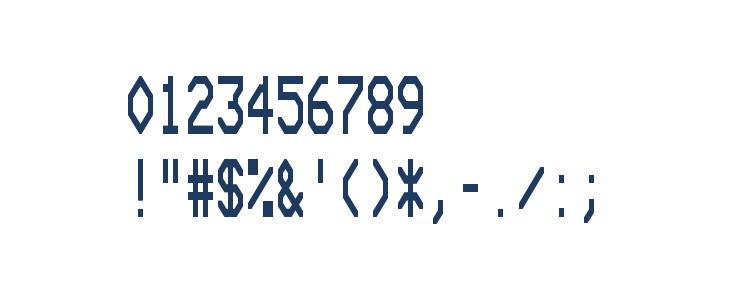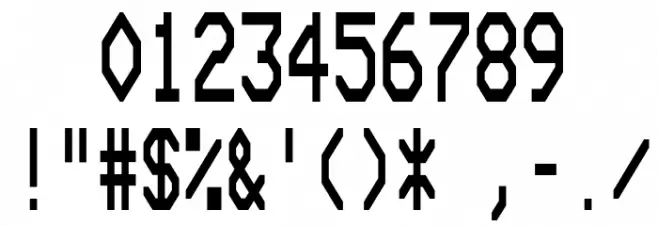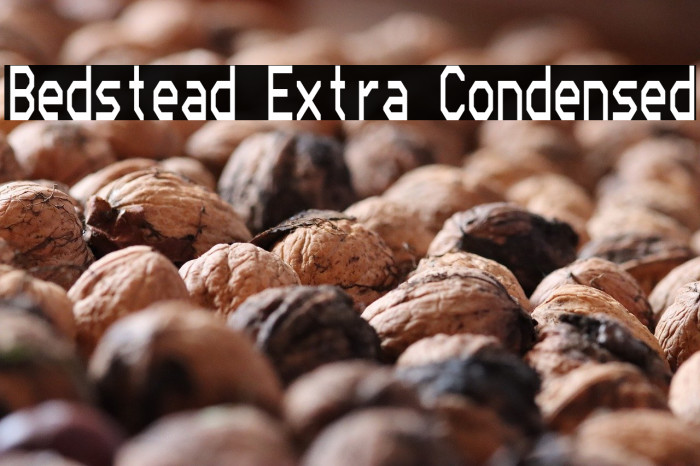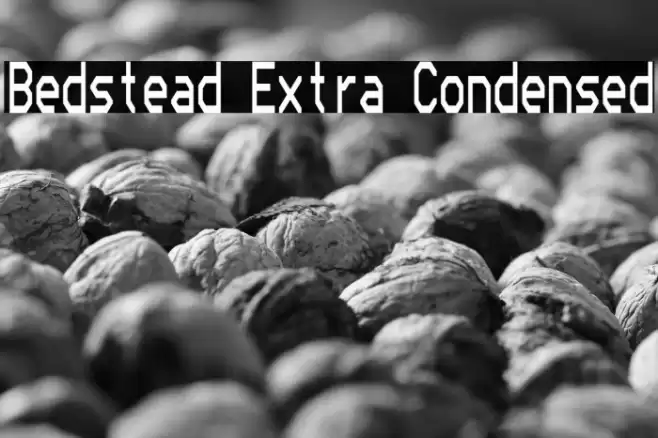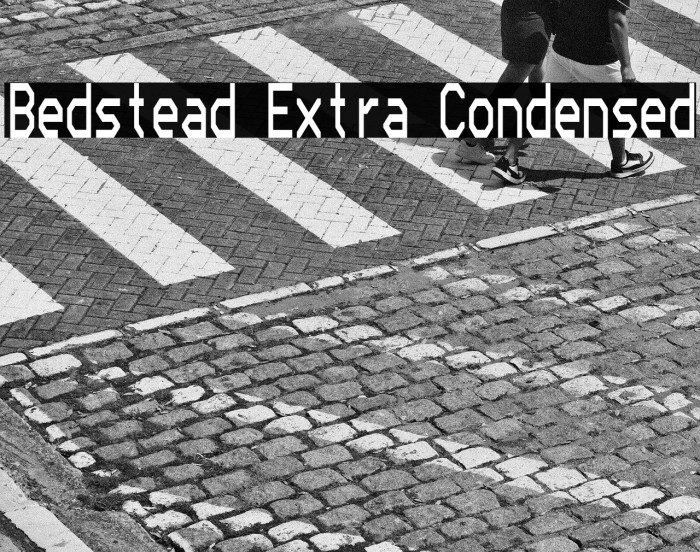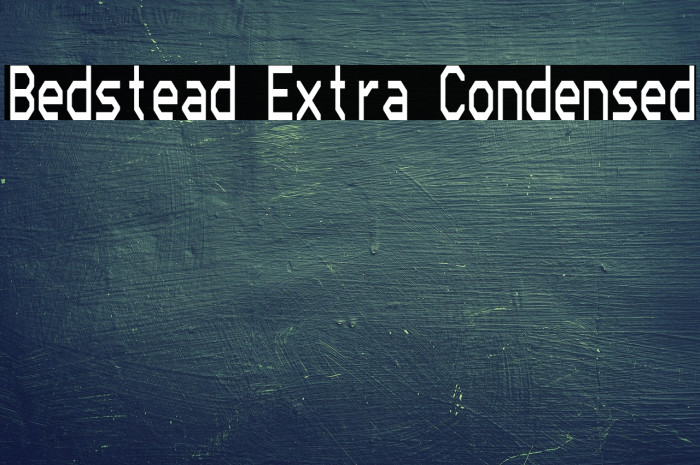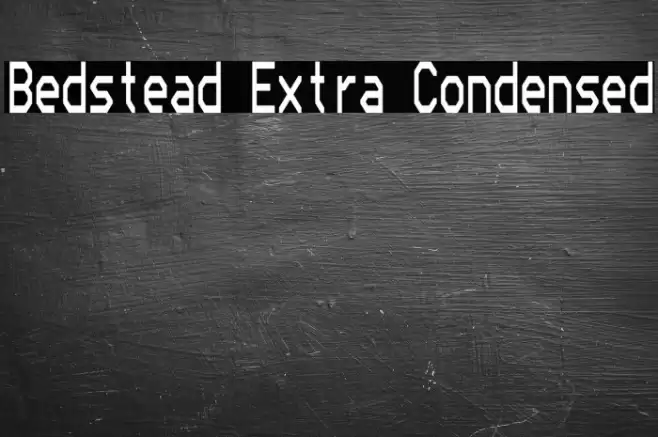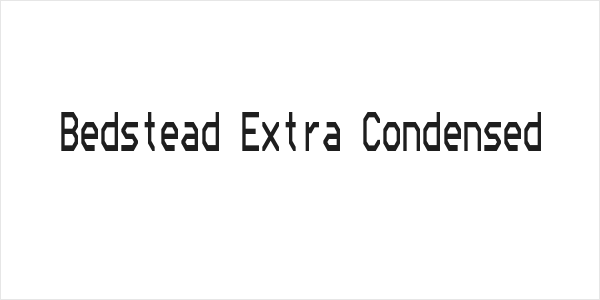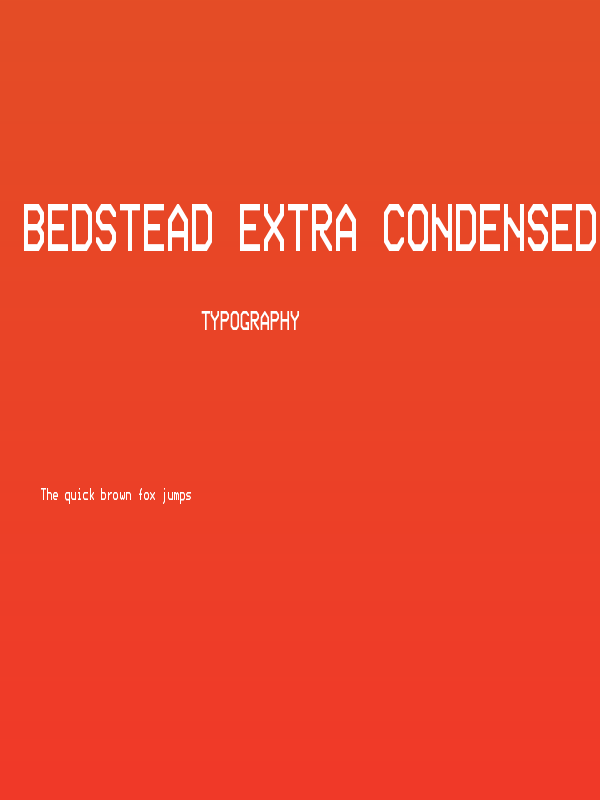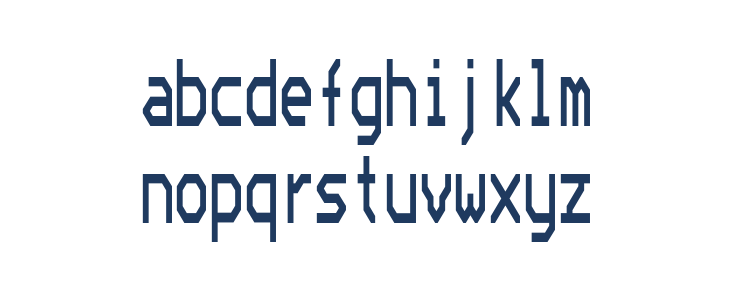
Bedstead Extra Condensed Font
Bedstead Extra Condensed Description
This font features a geometric and angular design, characterized by its extra-condensed structure. The letters are formed with straight lines and sharp angles, giving it a modern and technical appearance. The uppercase and lowercase letters maintain a consistent height, while the numerals and special characters follow the same angular style. The overall look is clean and minimalistic, making it suitable for digital displays and technical documents. The uniformity in stroke width and the absence of curves contribute to its distinctive, futuristic aesthetic.
Use CaseHeadlines, Digital displays, Technical documents
Proposed ProjectsIdeal for digital displays, technical documents, coding interfaces, and minimalist design projects.